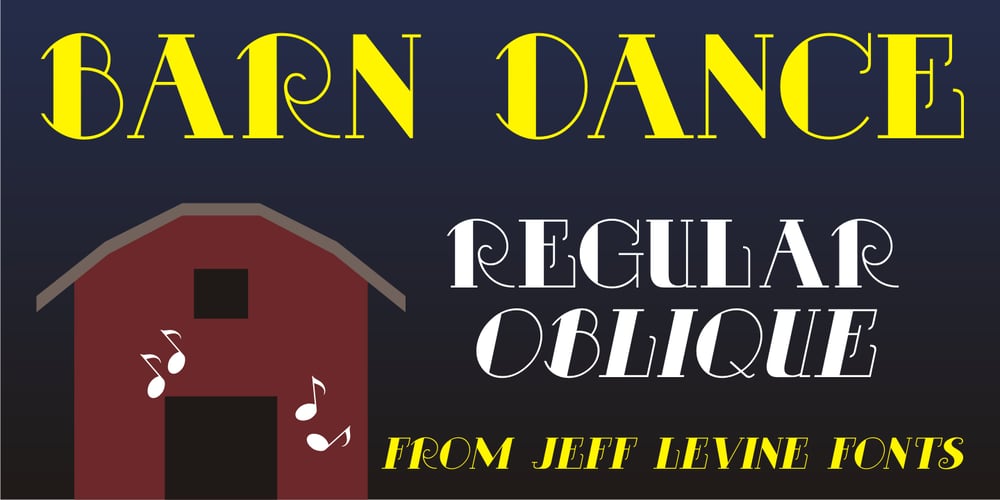
Barn Dance JNL Font Family was designed by Jeff Levine and published by Jeff Levine. Barn Dance JNL contains 2 styles and family package options. The hand lettered title on the 1945 sheet music for the song “Louisiana Hayride” is an Art Deco design with a nod to the preceding Art Nouveau era. It is now available as Barn Dance JNL, which is available in both regular and oblique versions.